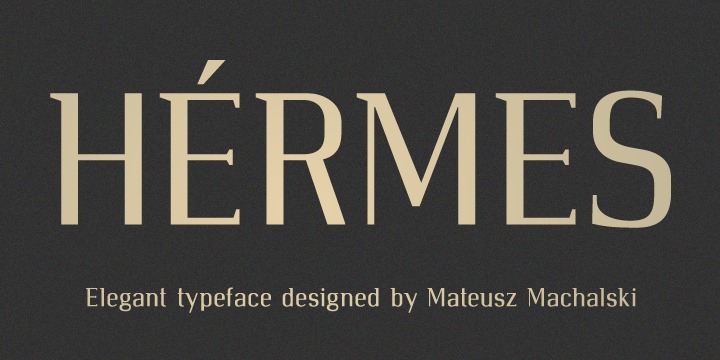
Hermes is a serif typeface with elegant feel. The massive contrast in the classic style and high x height is perfect for longer text and taglines. Each glyph in CAPS has the same detail in left corner so Hermes is much more readable.